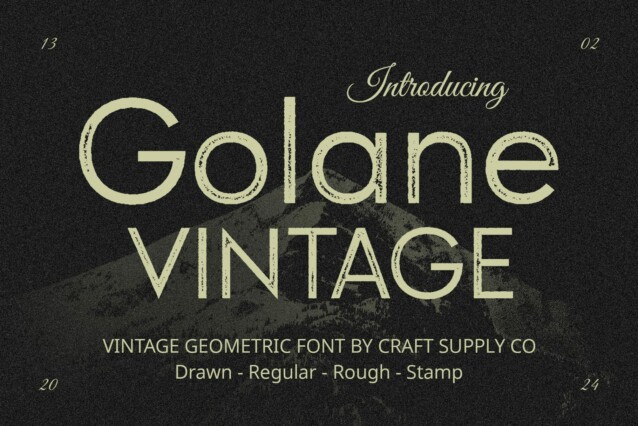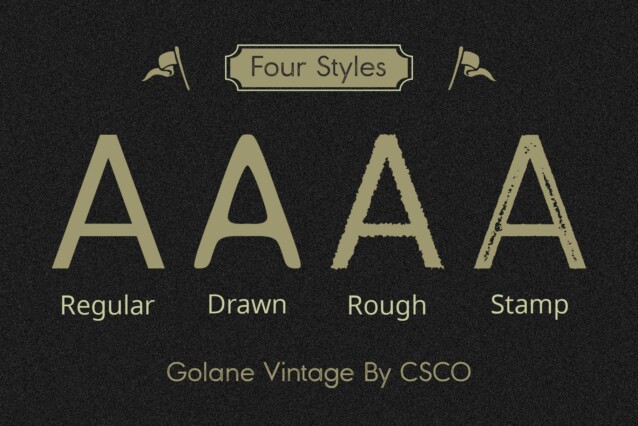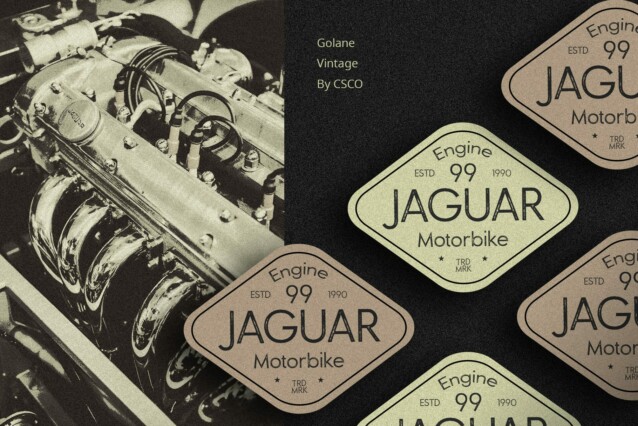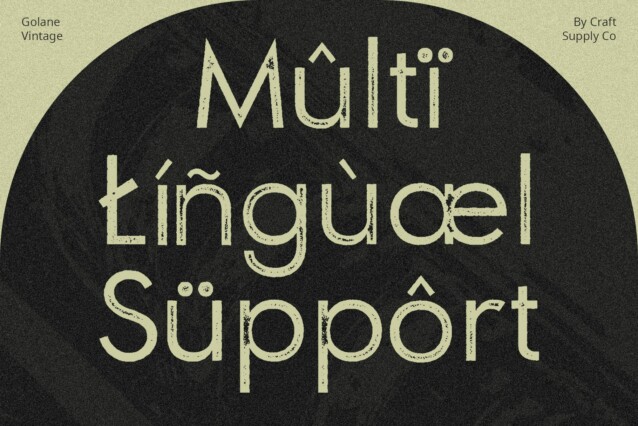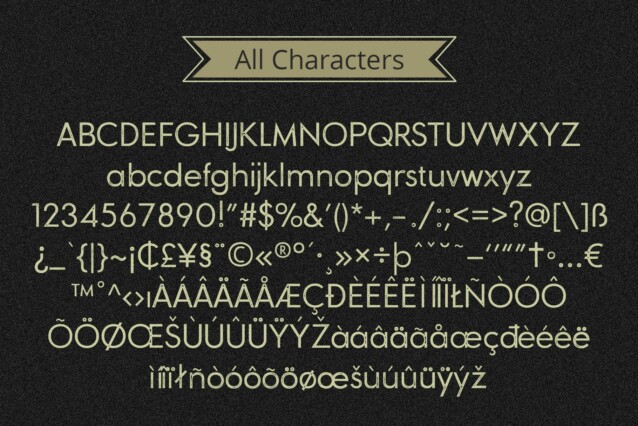
Golane Vintage Font
Golane Vintage Font is a sans serif typeface with low contrast, ensuring a balanced and uniform appearance across its characters. This design choice enhances readability and lends a modern touch to the vintage aesthetic.
Stamp Rough Effect The font is further enriched with a stamp rough effect, adding texture and personality reminiscent of aged prints. This rugged detailing evokes a sense of nostalgia, giving This font its distinctive vintage charm.